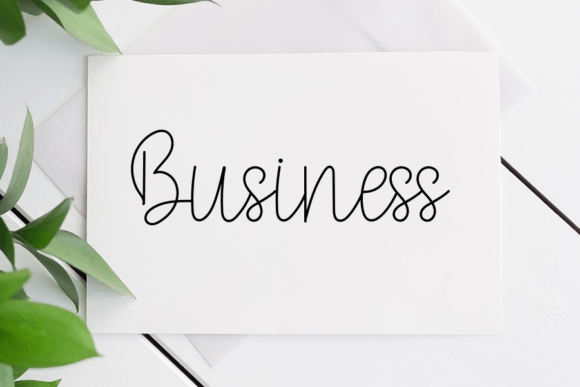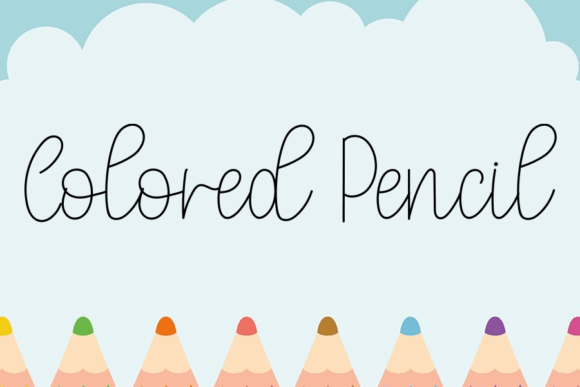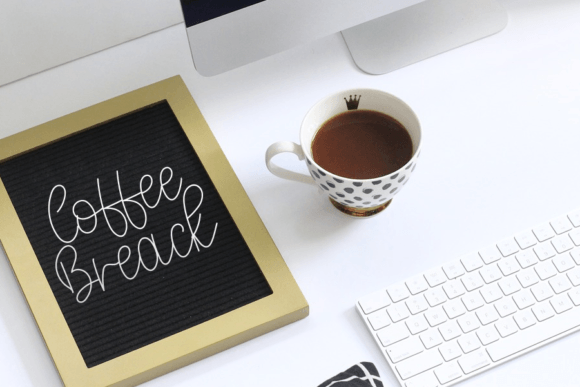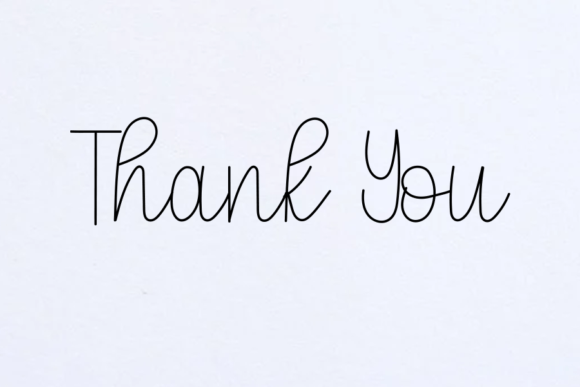
Introducing December Font: The Elegant Choice for Your Design Projects
Are you on the hunt for a font that exudes elegance and sophistication? Look no further than December Font, a beautiful, flowing handwritten font that is sure to capture your heart. With its incredibly distinct and timeless style, December Font is the perfect choice for designers and crafters looking to add a touch of luxury to their projects.
The Characteristics of December Font
December Font is a handwritten font that boasts an elegant touch, making it ideal for a wide range of design applications. Its flowing lines and curves create a sense of movement and fluidity, giving your designs a dynamic and eye-catching appeal. The font’s classic and timeless style ensures that it will never go out of fashion, making it a great investment for designers and crafters who want to create stunning designs that will stand the test of time.
What Makes December Font So Special?
So, what sets December Font apart from other fonts on the market? Here are just a few reasons why this font is a cut above the rest:
- Elegant and sophisticated: December Font’s elegant and sophisticated style makes it perfect for high-end designs, such as luxury branding, packaging, and advertising.
- Unique and distinctive: The font’s unique and distinctive style ensures that your designs will stand out from the crowd and grab attention.
- Timeless: December Font’s classic style ensures that it will never go out of fashion, making it a great investment for designers and crafters.
- Versatile: The font is versatile and can be used for a wide range of design applications, from digital designs to print materials.
How to Use December Font in Your Designs
December Font is incredibly easy to use and can be incorporated into a wide range of design projects. Here are just a few ideas to get you started:
- Branding and logos: Use December Font to create stunning logos and branding materials that exude elegance and sophistication.
- Packaging: Add a touch of luxury to your packaging designs with December Font.
- Advertising: Use December Font to create eye-catching ads that grab attention and leave a lasting impression.
- Digital designs: Incorporate December Font into your digital designs, such as social media graphics, website headers, and more.
- Print materials: Use December Font to create stunning print materials, such as brochures, flyers, and business cards.
Tips for Getting the Most Out of December Font
Here are a few tips for getting the most out of December Font:
- Experiment with different sizes: December Font looks great in a variety of sizes, so don’t be afraid to experiment to find the perfect size for your design.
- Pair it with other fonts: December Font pairs well with a range of other fonts, so try combining it with other fonts to create a unique and eye-catching design.
- Use it in combination with images: December Font looks great when used in combination with images, so try incorporating it into your designs to add a touch of elegance and sophistication.
In conclusion, December Font is a beautiful, flowing handwritten font that is sure to capture your heart. With its elegant and sophisticated style, unique and distinctive characteristics, and timeless appeal, December Font is the perfect choice for designers and crafters looking to add a touch of luxury to their projects. Whether you’re creating branding materials, packaging, advertising, or digital designs, December Font is sure to help you create stunning designs that will stand out from the crowd.